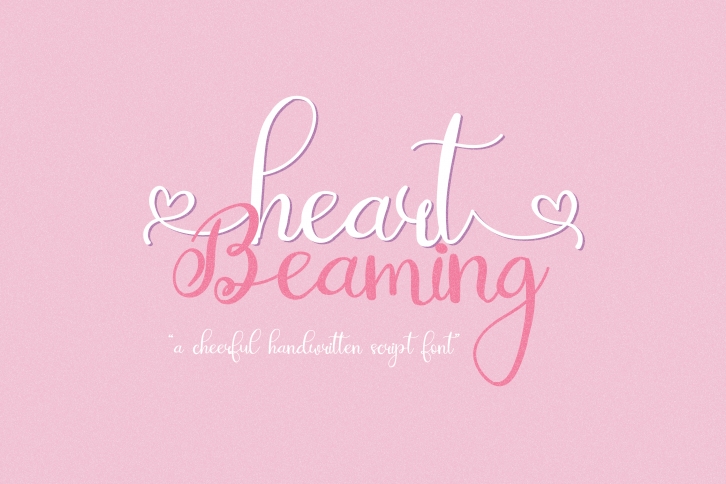
Heart Beaming is a sweet and beautiful handwritten script font. Get inspired by its incredibly elegant feel, and use it to turn any design project into a standout! Heart Beaming is PUA encoded which means you can access all of the glyphs and swashes with ease!